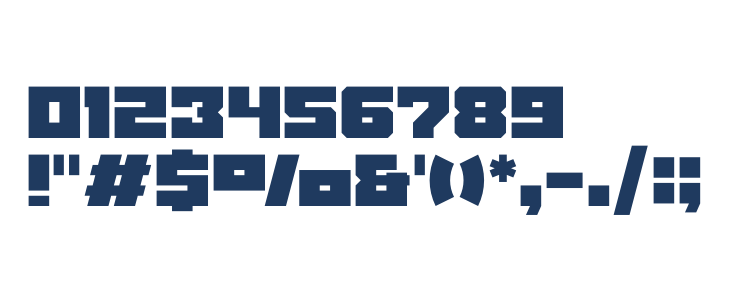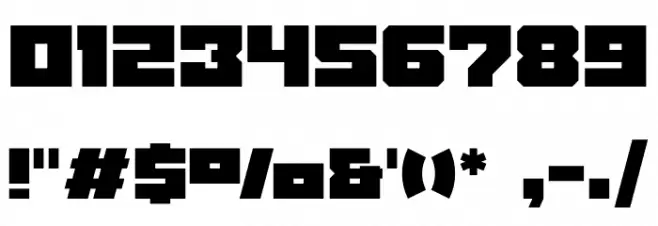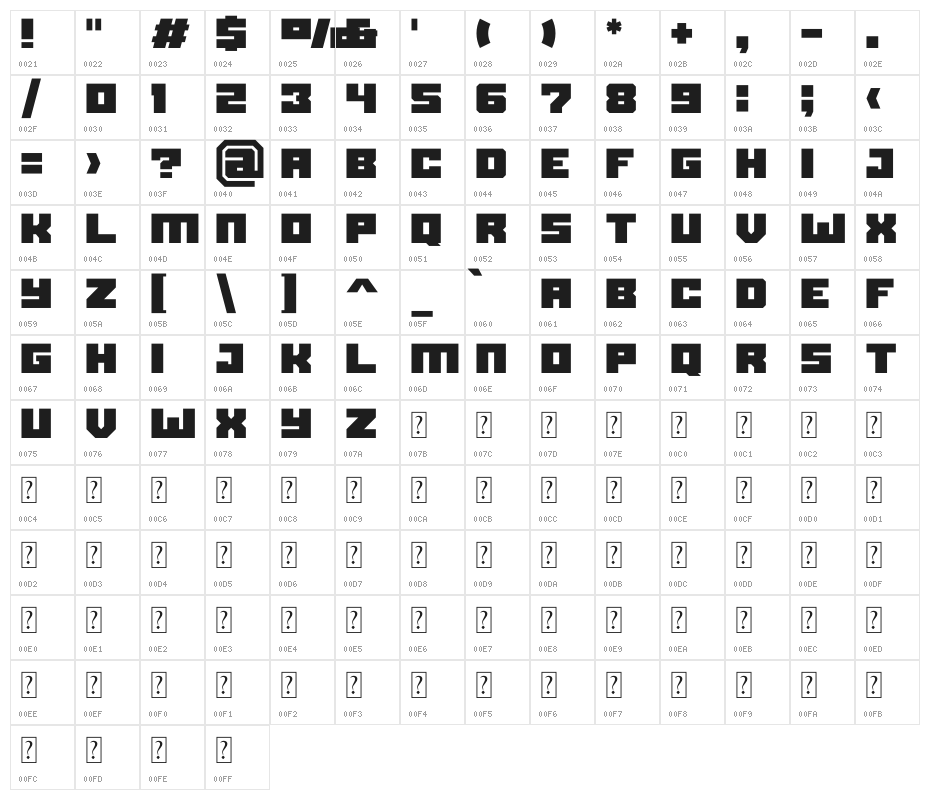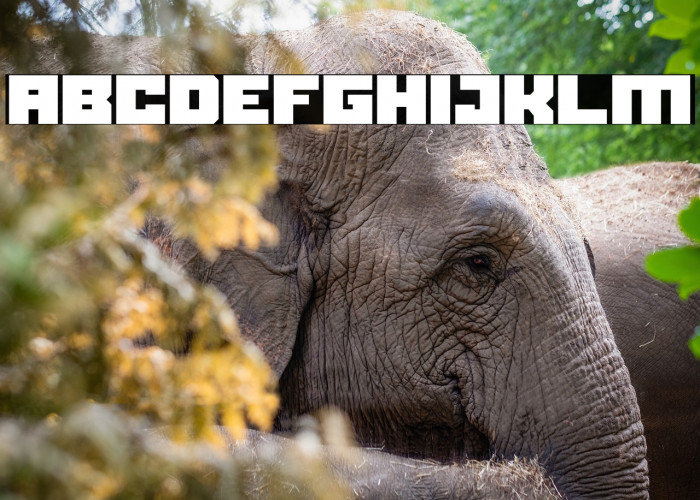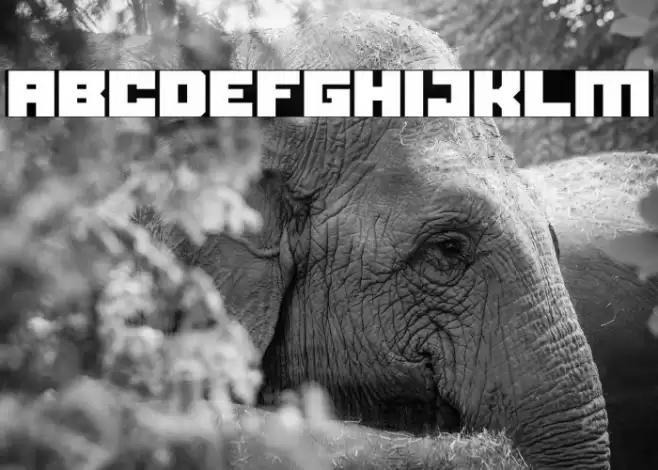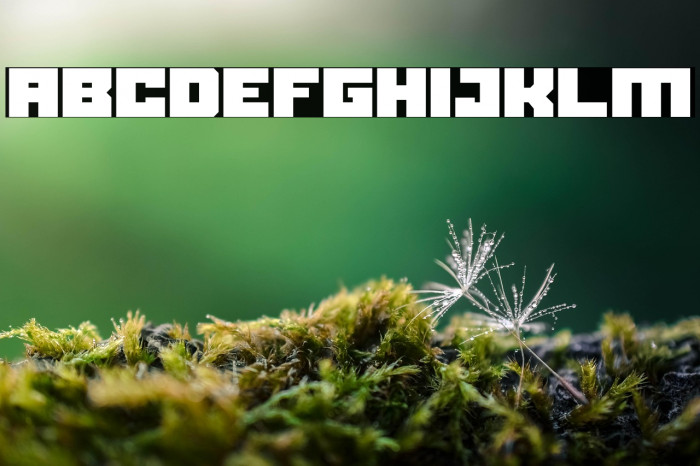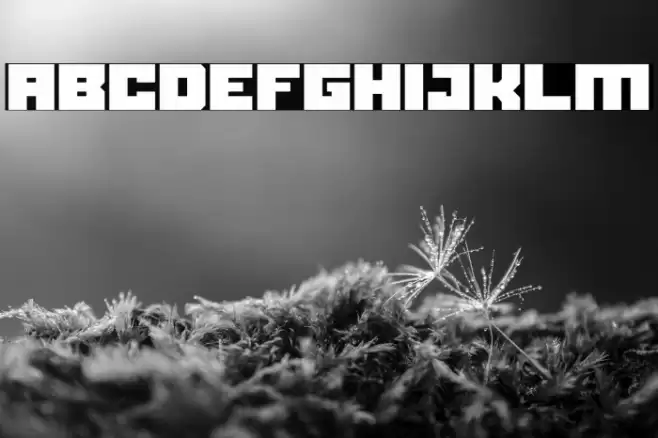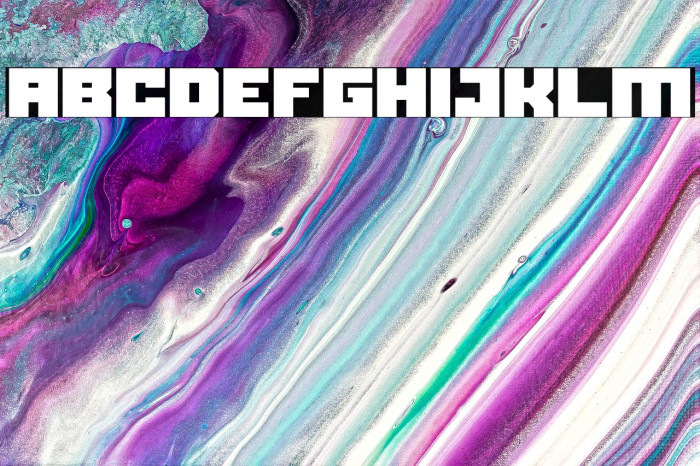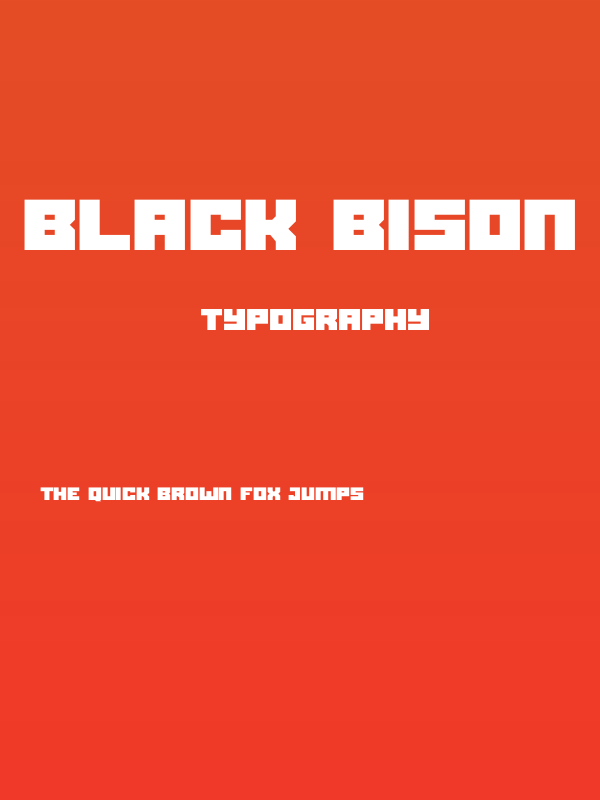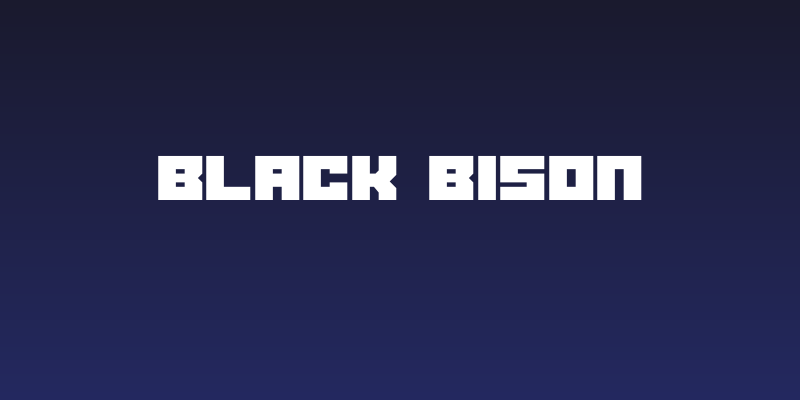
Black bison Font
Black bison Description
This font exhibits a bold and robust design, characterized by thick, block-like letters with sharp angles and a geometric structure. The uppercase and lowercase letters maintain a consistent width, contributing to a uniform appearance. The numerals and special characters follow the same bold style, ensuring cohesion across all elements. The font's strong presence makes it ideal for impactful designs, where attention-grabbing text is essential. Its modern and industrial aesthetic is suitable for projects that require a sense of strength and stability.
Proposed ProjectsIdeal for branding, posters, headlines, and any design requiring a bold statement.